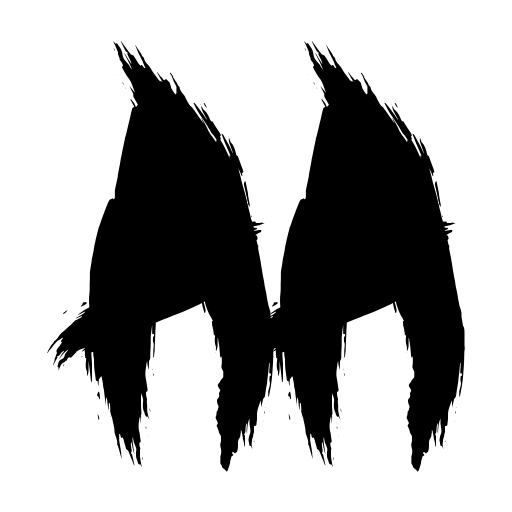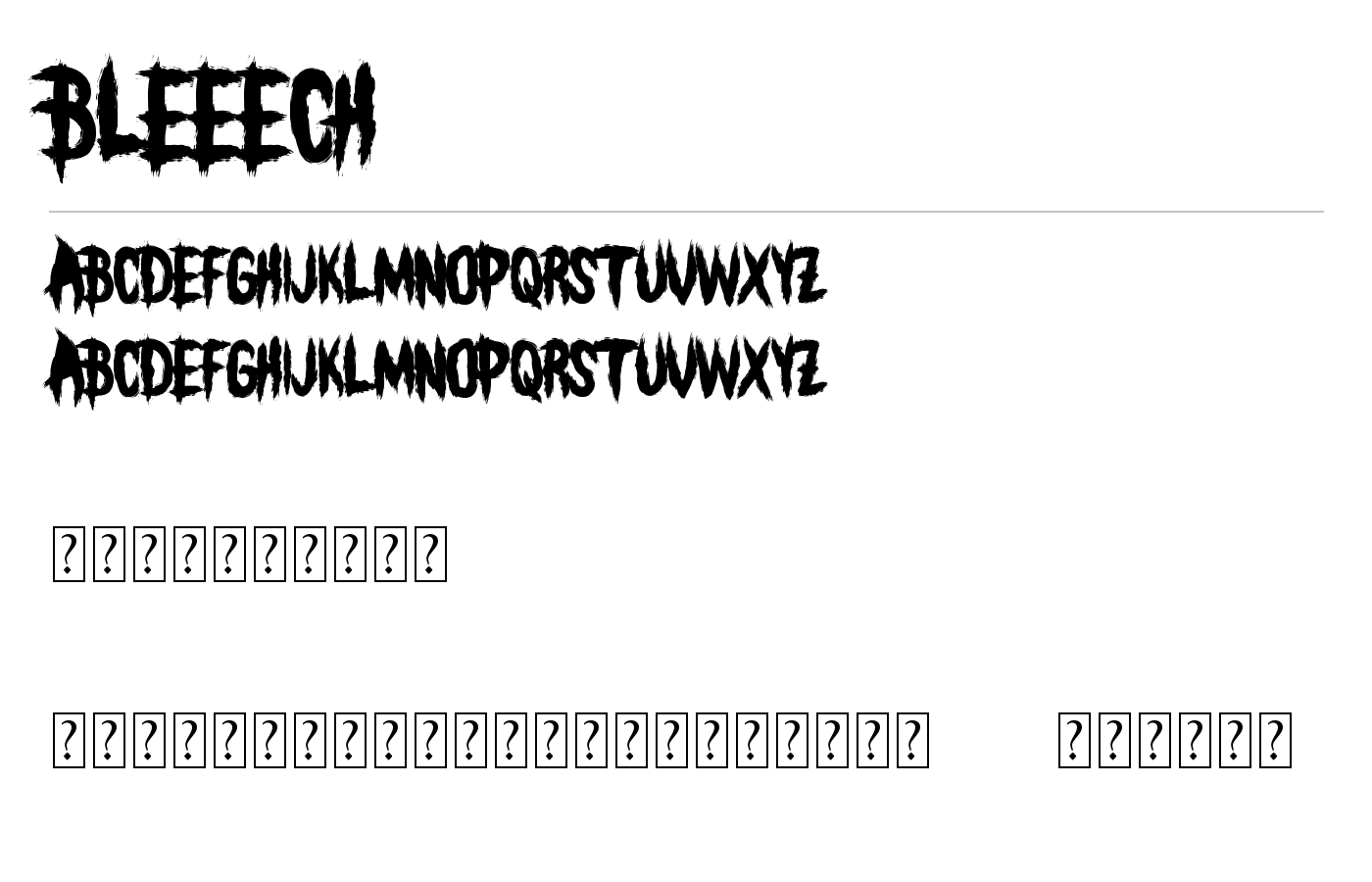
BLEEECH is a bold, condensed sans serif font with a rough, hand-painted texture that gives it a raw and edgy feel. Its distressed strokes and uneven edges create a sense of rebellion and intensity, making it ideal for designs that want to convey energy and a gritty, urban vibe. This font works best in striking headlines, posters, and branding where a dramatic, attention-grabbing style is needed.
BLEEECH Font